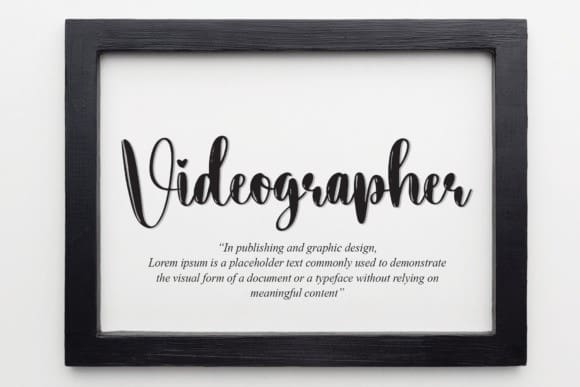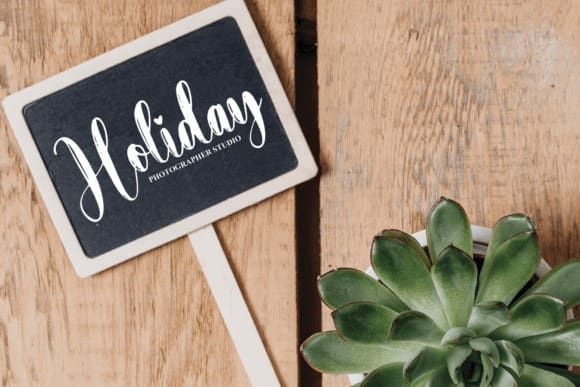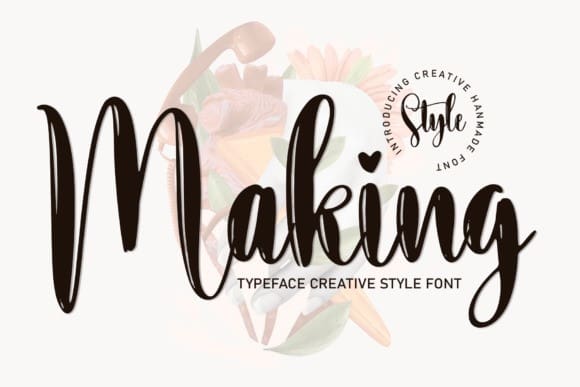
Making Script Font
Making Script Font is an exquisite handwritten font, masterfully designed to become a true favorite. It maintains its classy calligraphic influences while feeling contemporary and fresh. Fall in love with it and bring your projects to the highest levels!